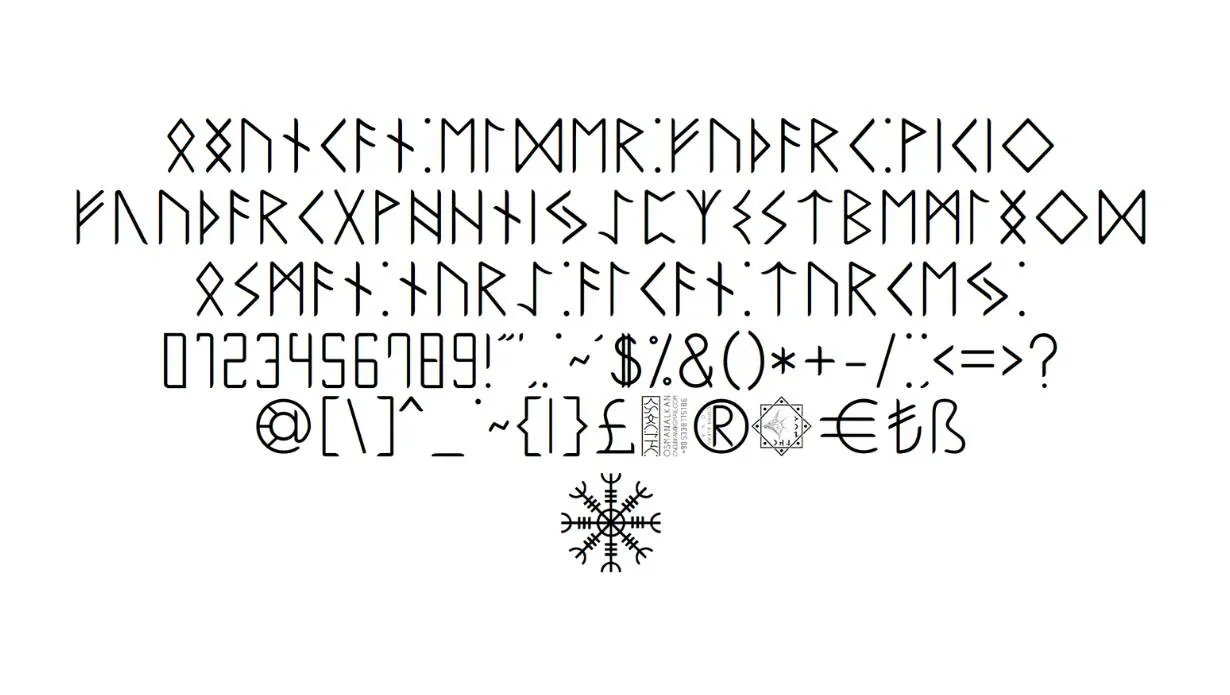
Elder Futhark Font is inspired by the runic script used in historical inscriptions. It’s often used in projects that seek to evoke a sense of ancient history, Viking themes, or mystical aesthetics.
This font adds an element of authenticity and a connection to ancient traditions in design work.
| Name | Elder Futhark Font |
| Designer | Curtis Clark |
| Style | Old Style |